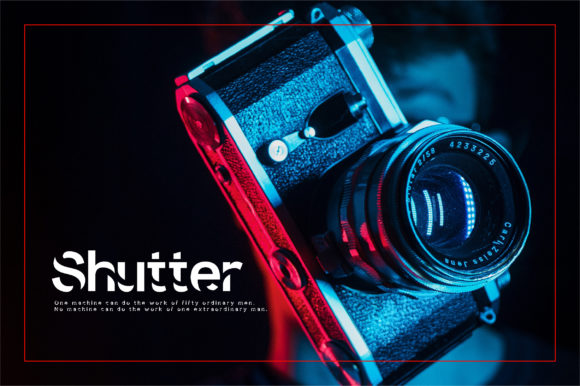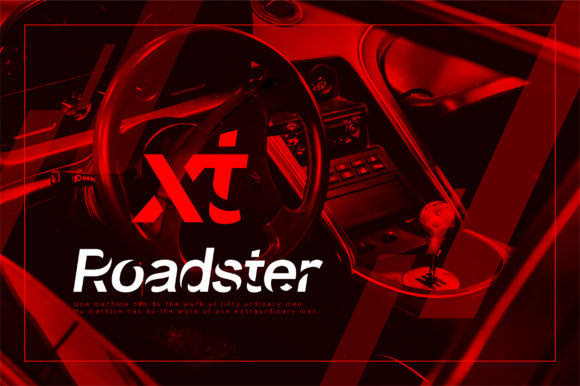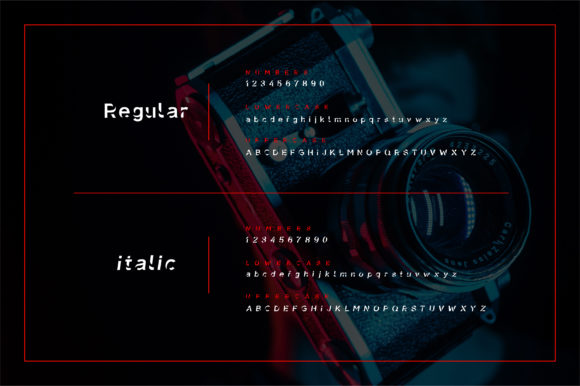
Introduction to Setters Font
Setters is a bold and authentic display font.
It celebrates abstract shapes in all their eclectic brilliance Add this font to your creative ideas and notice how it will make them stand out.
Key Features of Setters Font